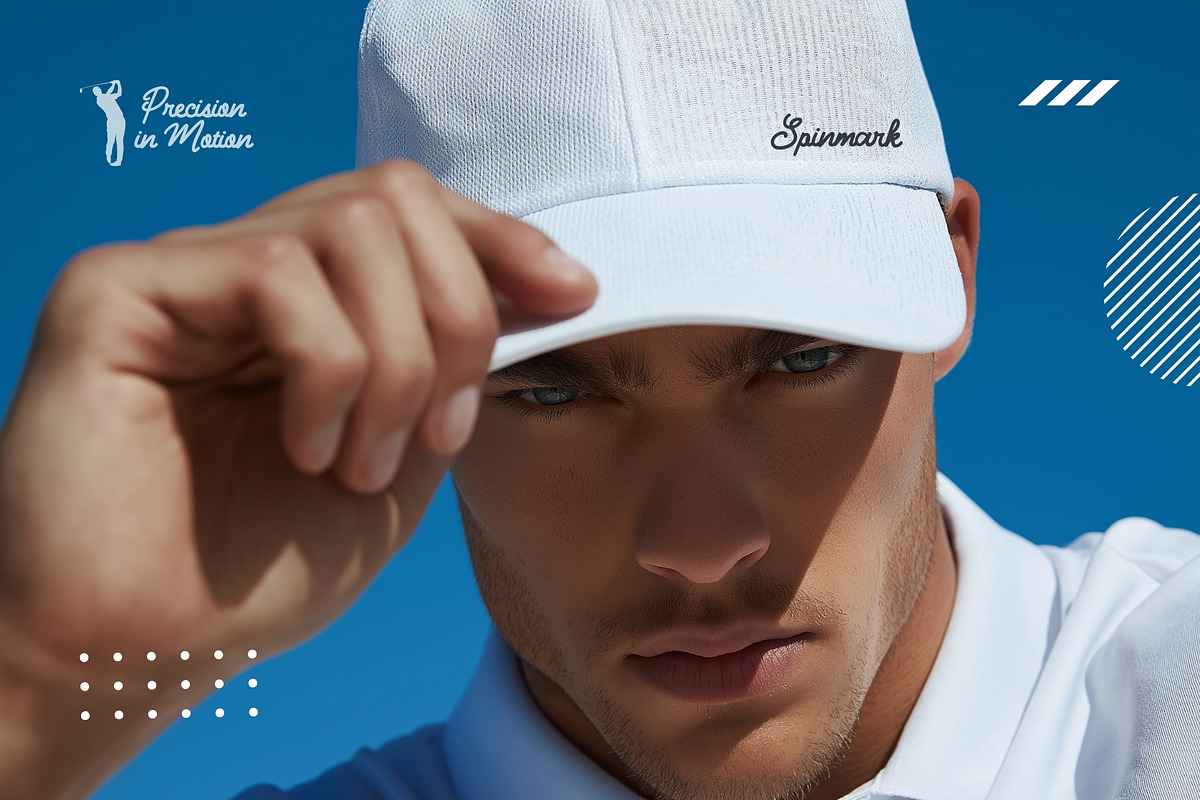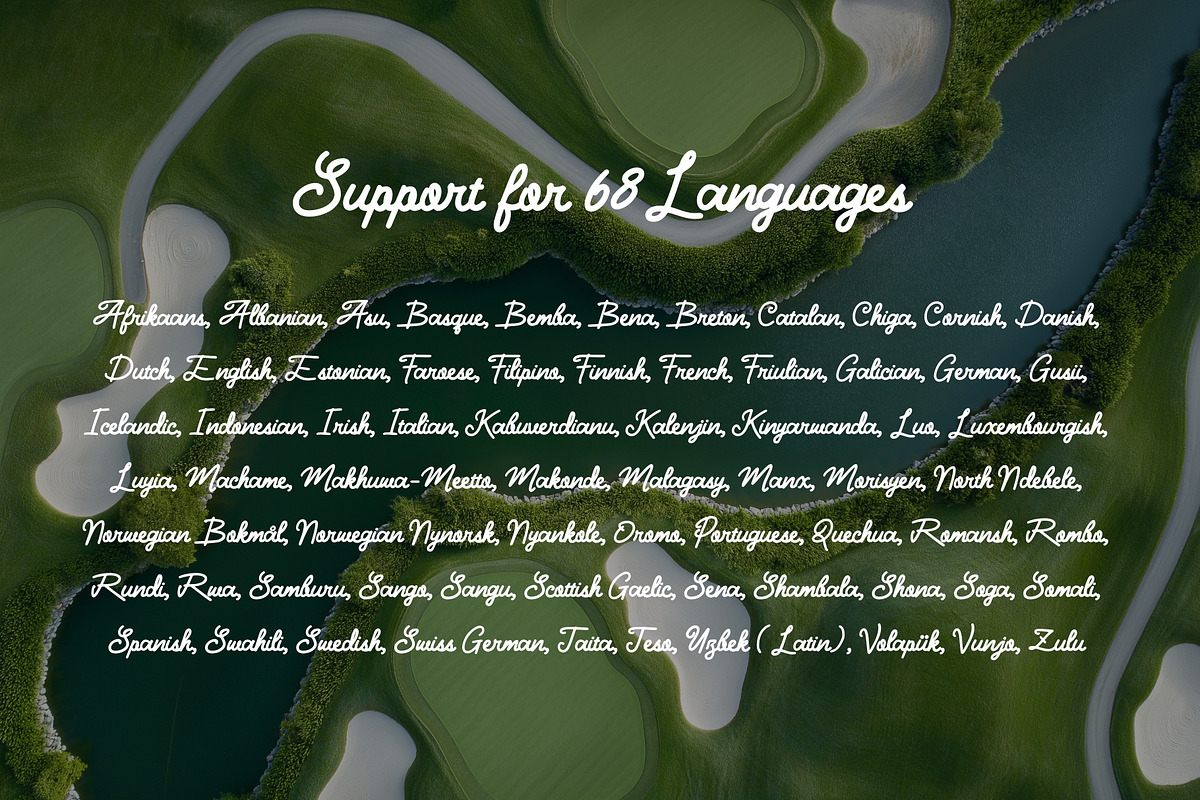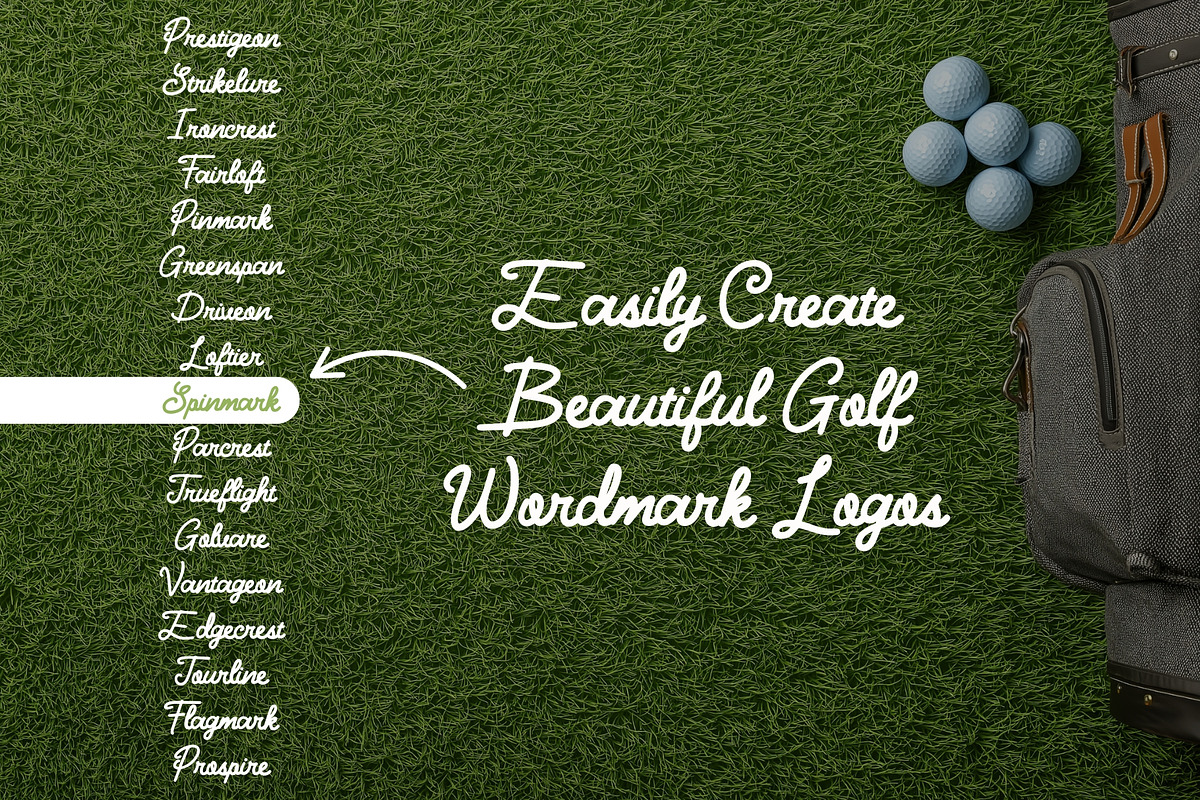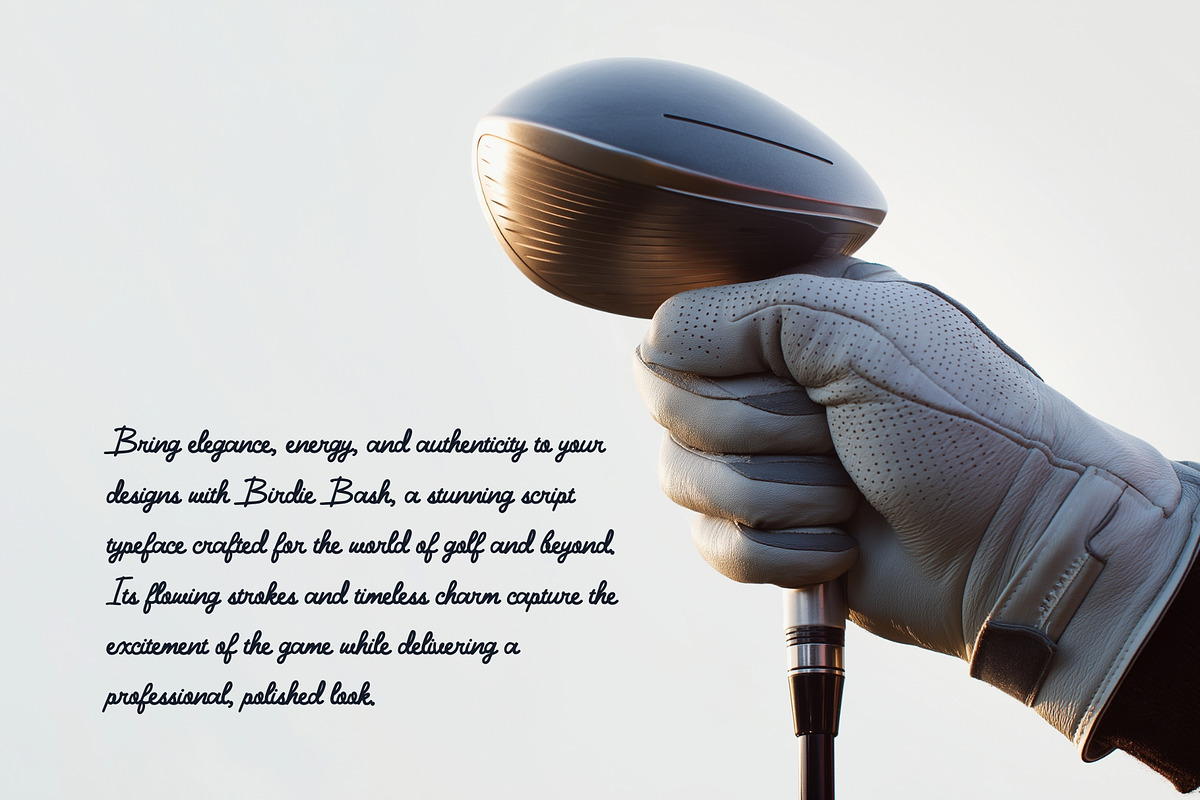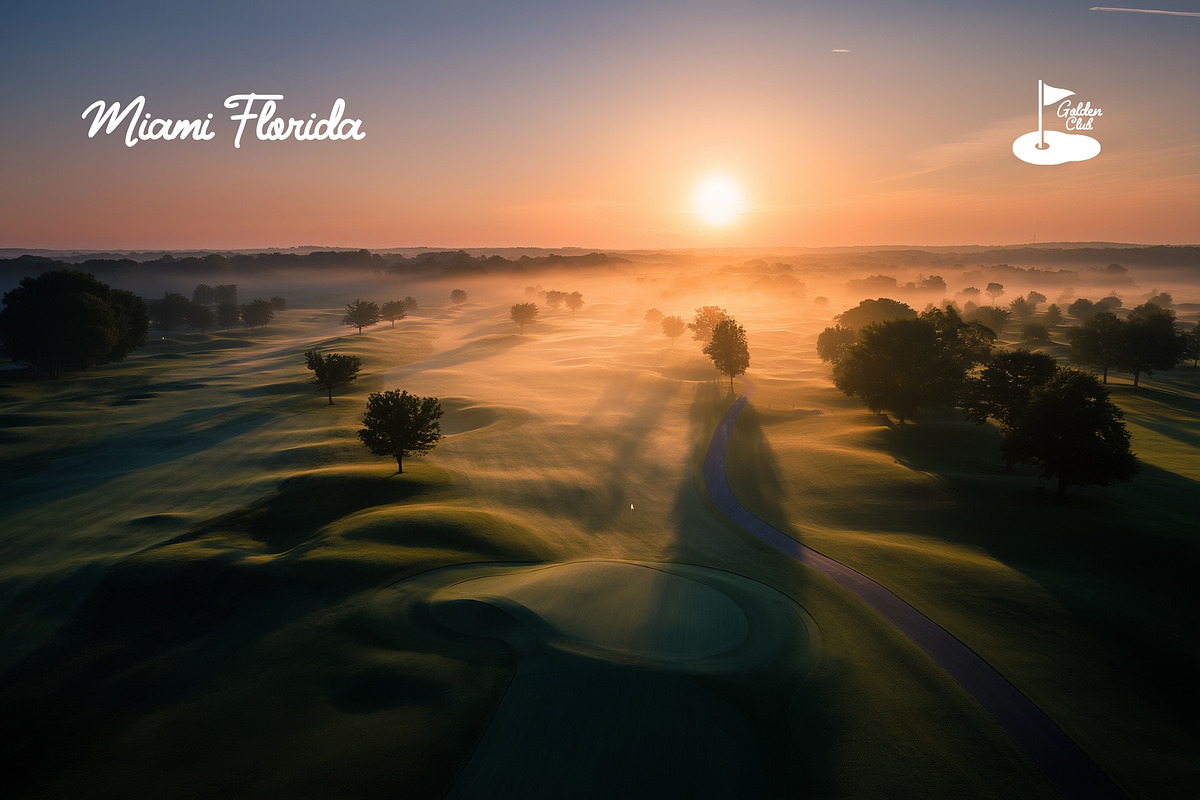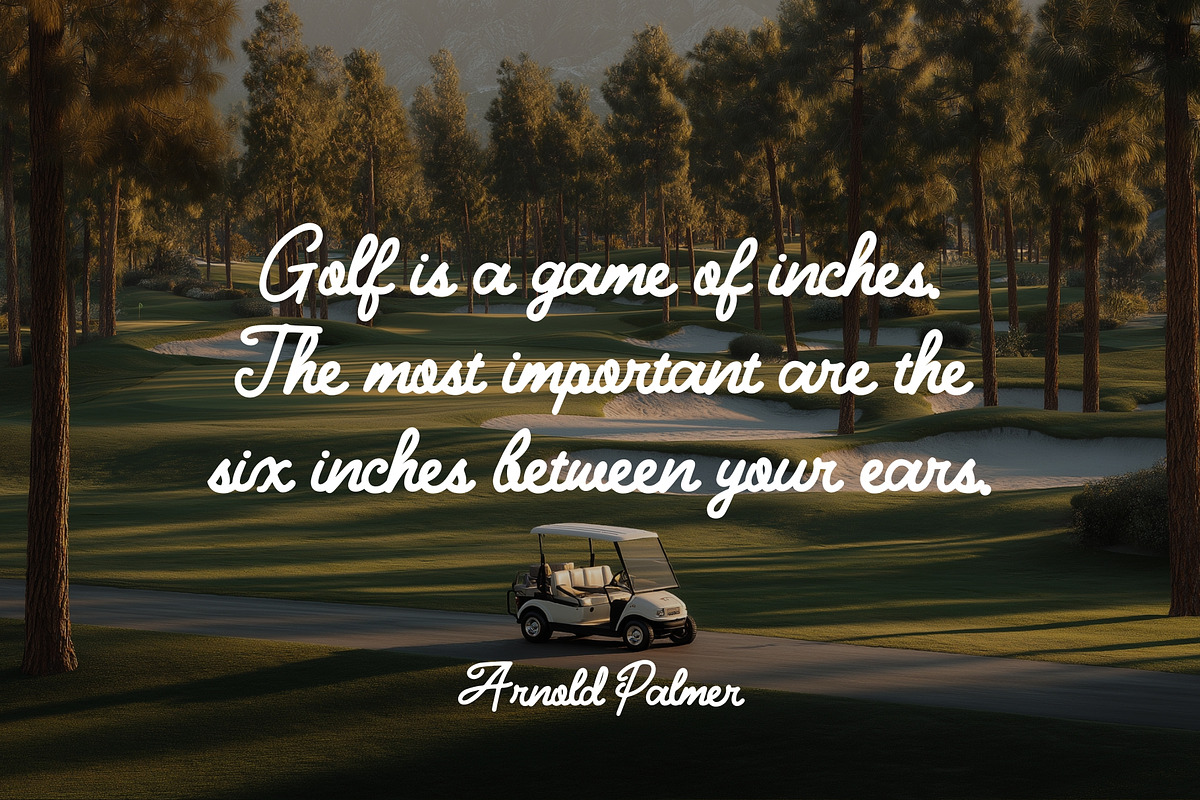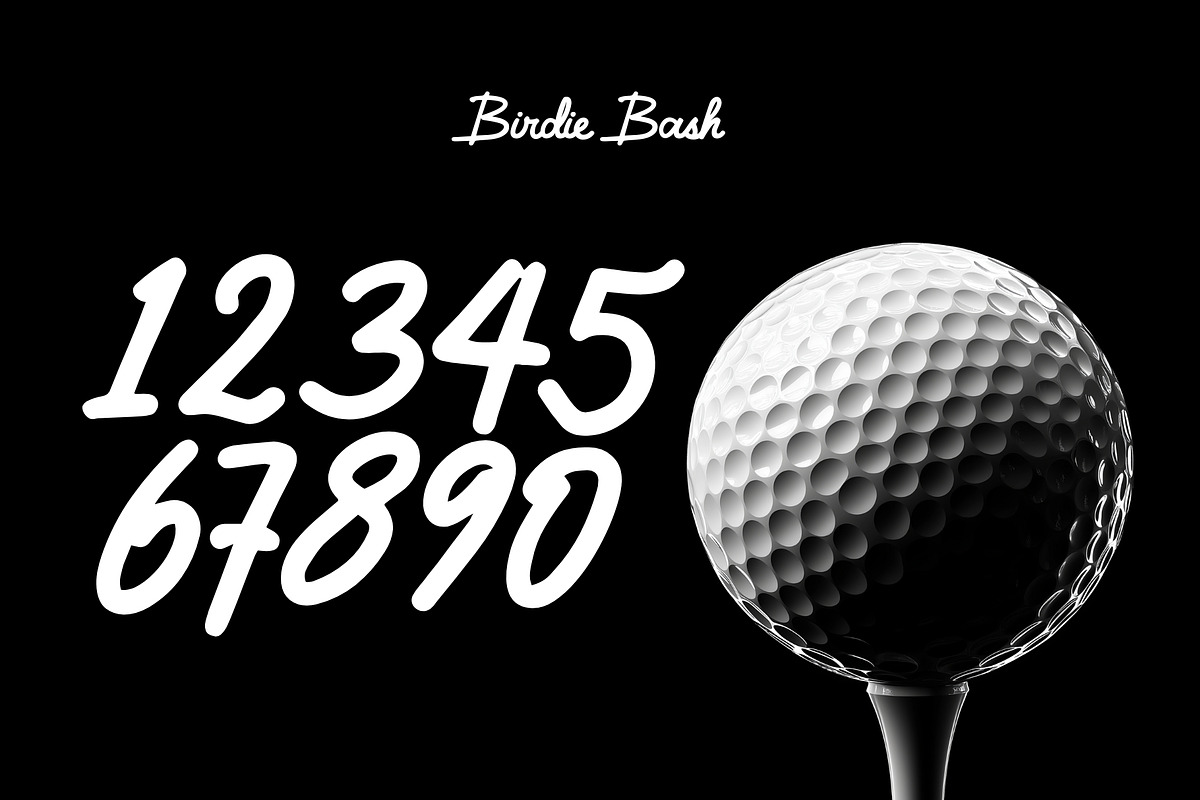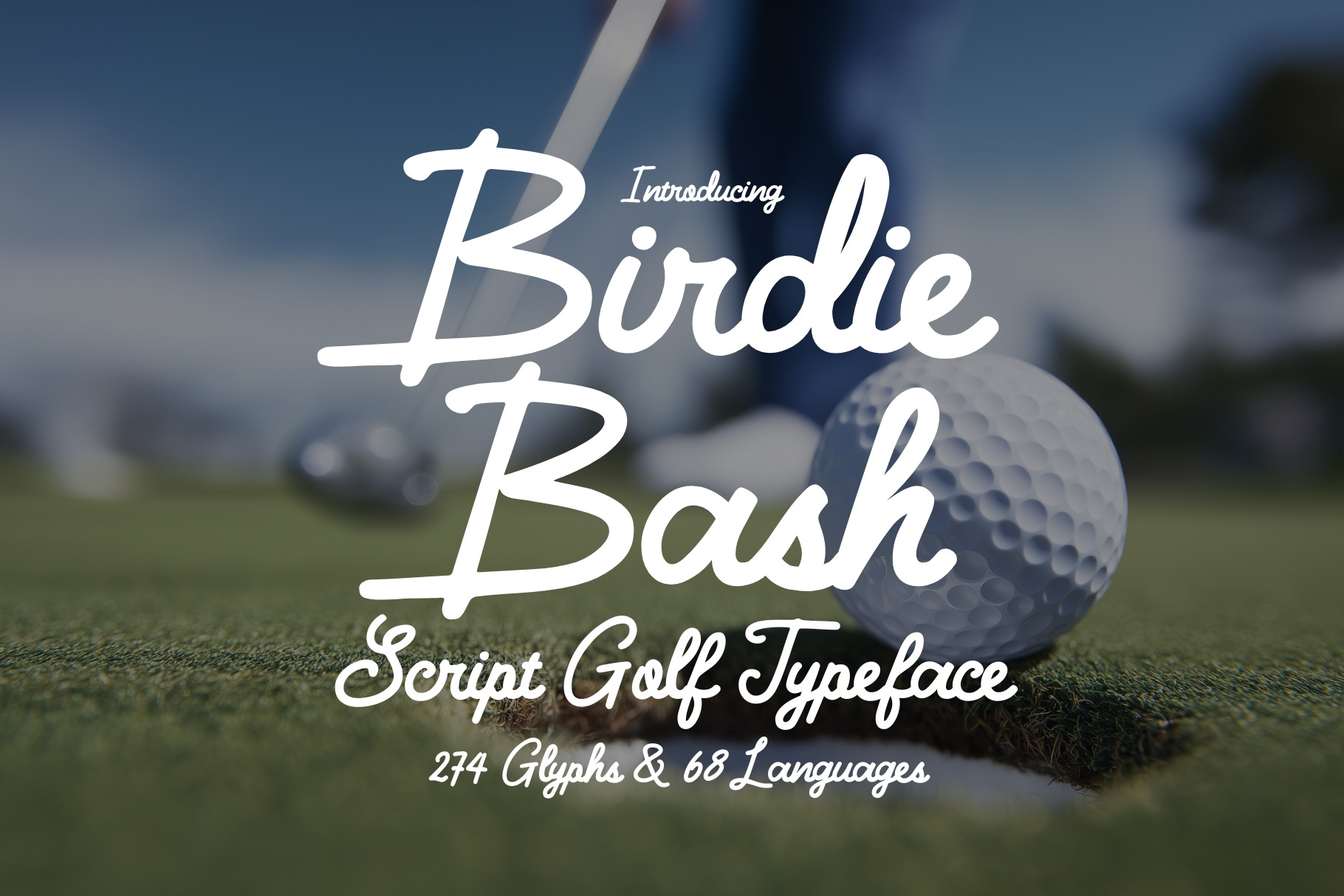
Birdie Bash - Script Golf Typeface
Bring elegance, energy, and authenticity to your designs with Birdie Bash, a stunning script typeface crafted for the world of golf and beyond. Its flowing strokes and timeless charm capture the excitement of the game while delivering a professional, polished look.
Perfect for creating beautiful wordmark logos, golf-related branding, advertising campaigns, event promotions, and more, Birdie Bash is as versatile as it is stylish. With its refined curves and personal, hand-crafted feel, this typeface adds an instant touch of class to any project.
Whether you’re designing for a golf club, a tournament, or a lifestyle brand, Birdie Bash ensures your message lands with impact and sophistication. This is more than just a font, it’s your secret weapon for creating work that’s memorable, timeless, and full of personality.